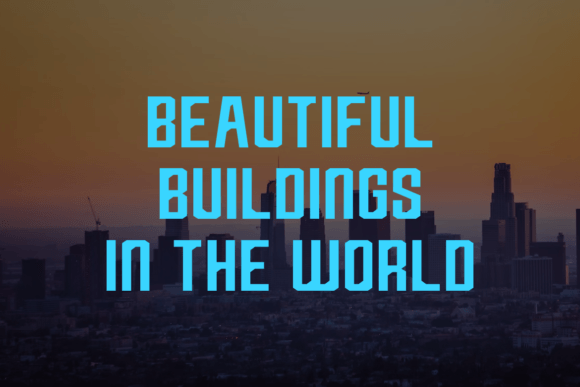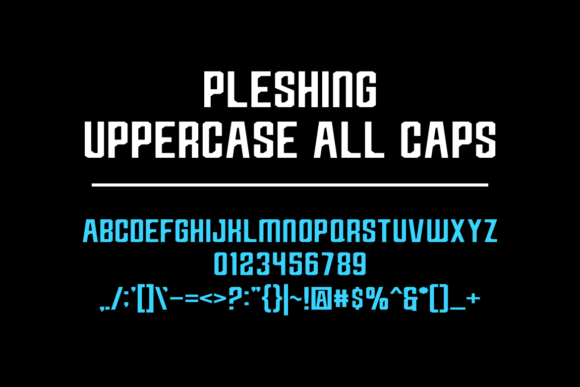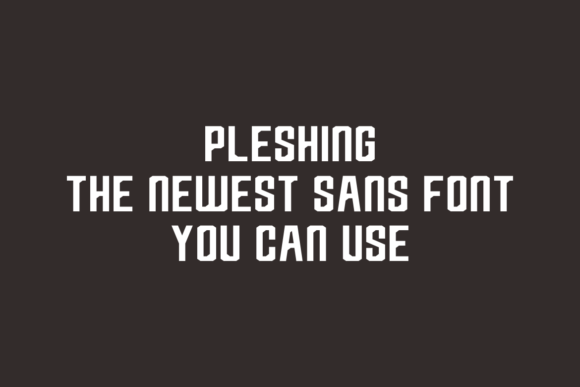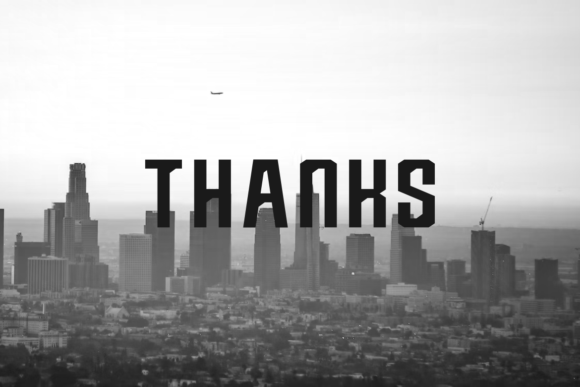
Introduction to Pleshing Font
Pleshing is a modern and bold display font that embodies authenticity and strength.
Its powerful design features clean lines and strong curves that make it perfect for branding, advertising, and other design projects that require a bold and memorable font .